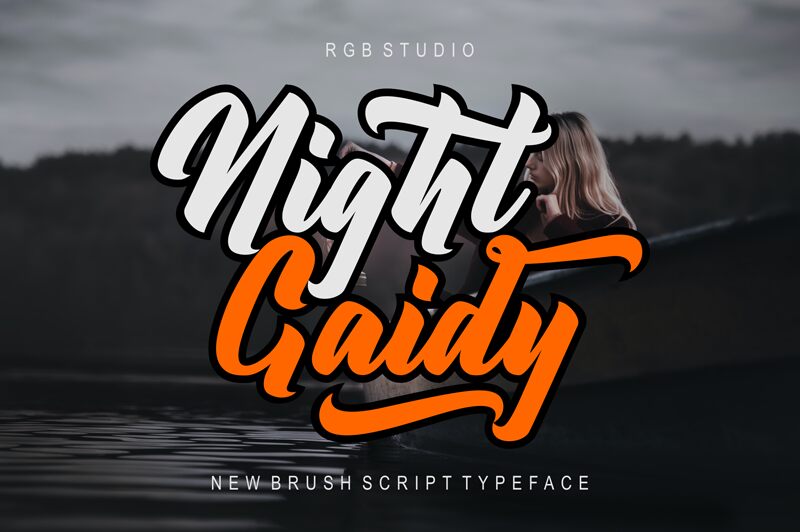
Night Gaidy, designed by RGB Studio, exudes a bold vintage charm with its brush script style. The font dances with a sense of fluidity and grace, its curves and rounded strokes suggesting a handcrafted elegance. This distinctive typeface, with its strong personality and a touch of nostalgia, is ideal for creating impactful branding materials that require a personal touch.
In use, Night Gaidy shines across various applications - from the sophistication needed in wedding invitations to the boldness desired in branding projects like logos. It can also elevate the aesthetic of fashion labels, beauty product packaging, or any advertising that benefits from an intimate yet assertive script font. Night Gaidy's versatile nature makes it an exceptional choice for designers looking to infuse their work with both character and class.